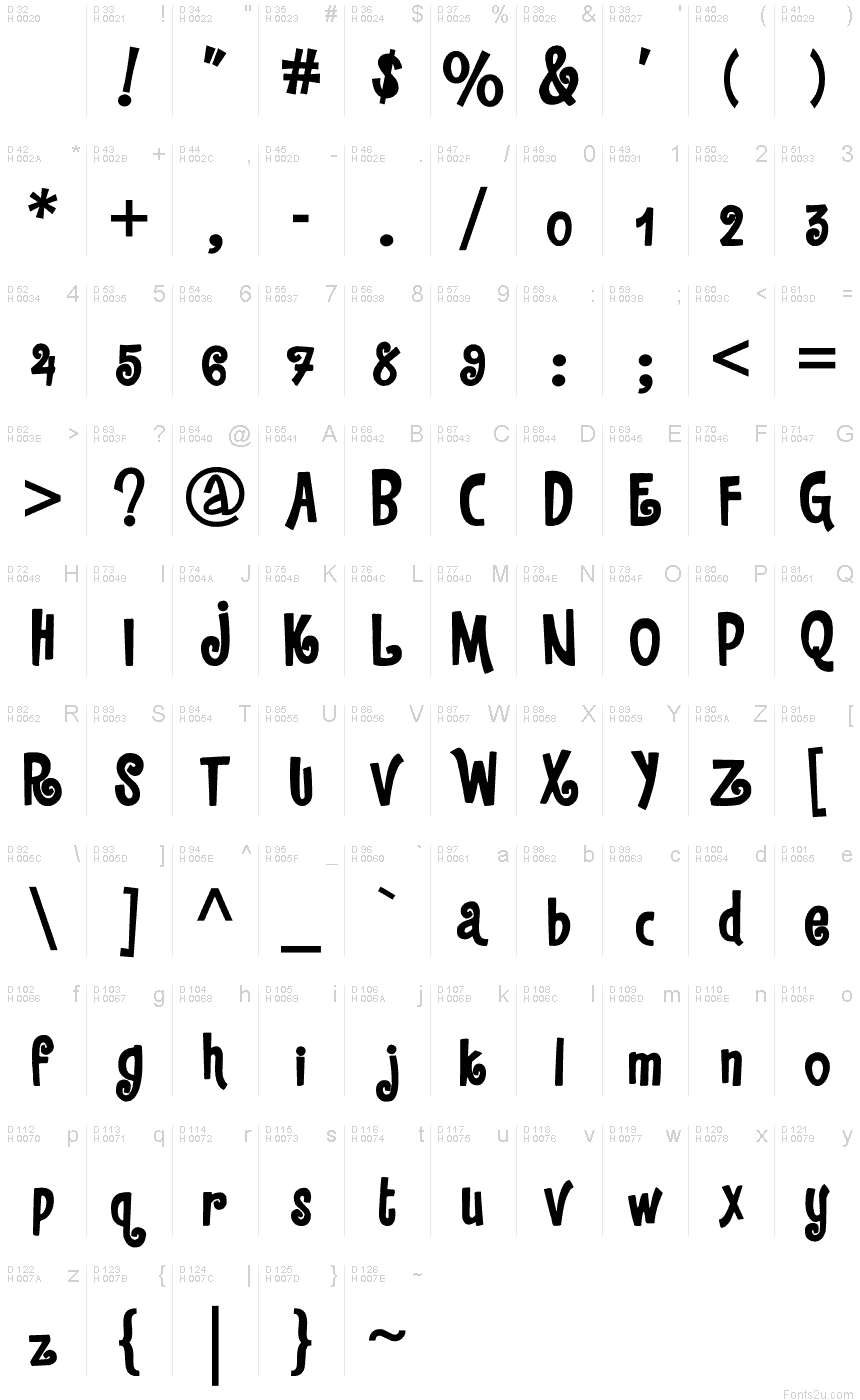
Oh {Photo} Shoot! is a free groovy cartoon display font with tall, swollen letters and a loose hand-drawn outline. Rounded forms stretch and pinch unpredictably, giving the lettering a rubbery silhouette that recalls playful 1970s graphics.
Comedy and offbeat entertainment are its clearest territory, especially for posters and title cards. Its exaggerated curves also suit snack packaging and children's merchandise, where a friendly, unruly voice is useful. The recurring bulges and narrow joins can echo blobs, balloons, or gooey illustrated shapes, making the type part of the visual joke.
Oh {Photo} Shoot!